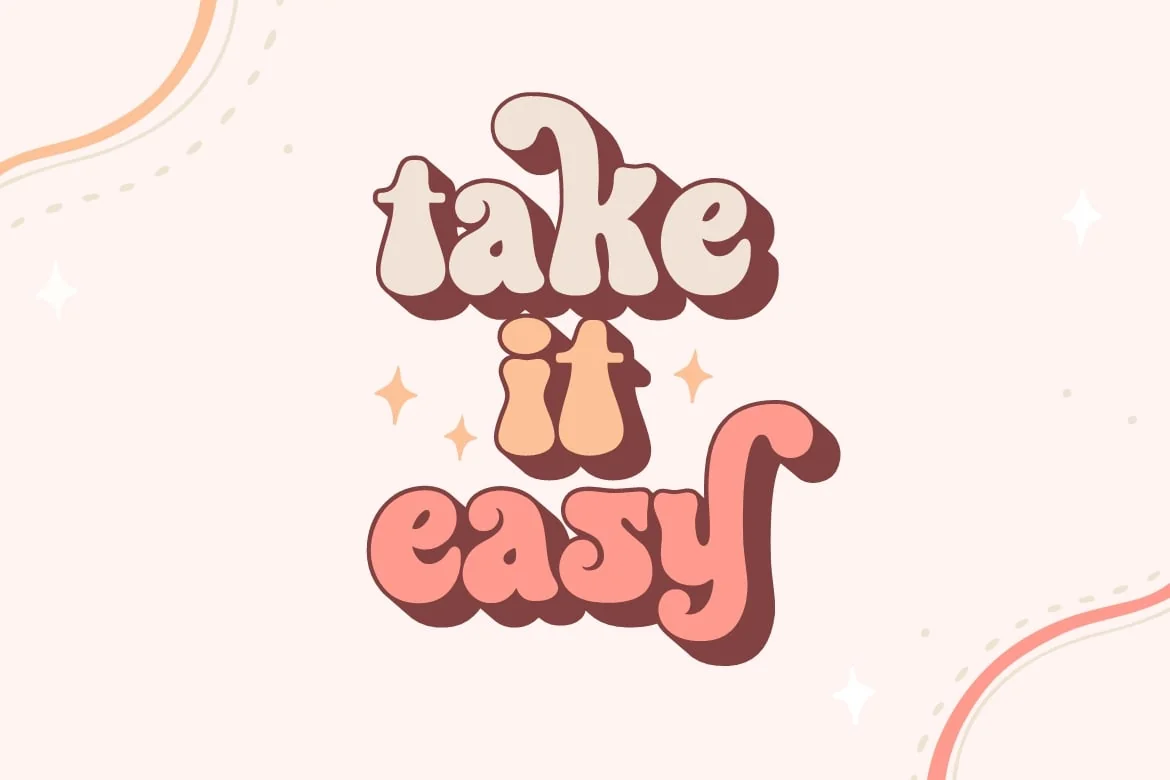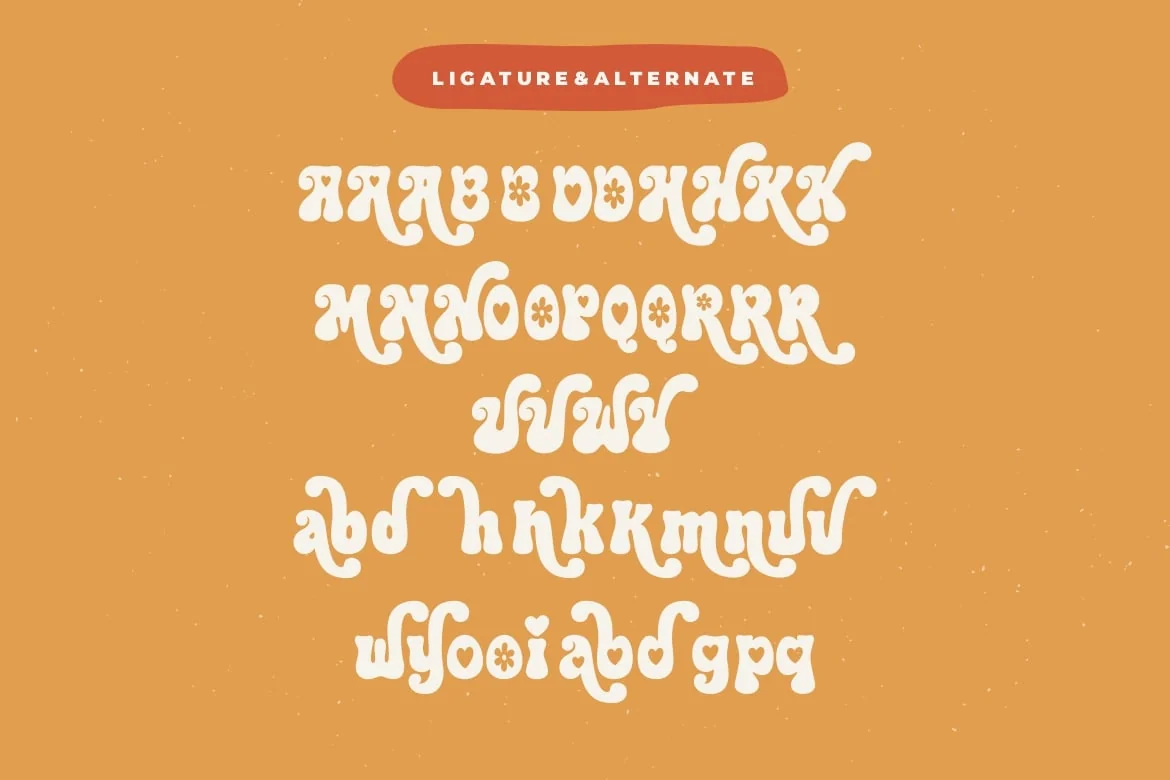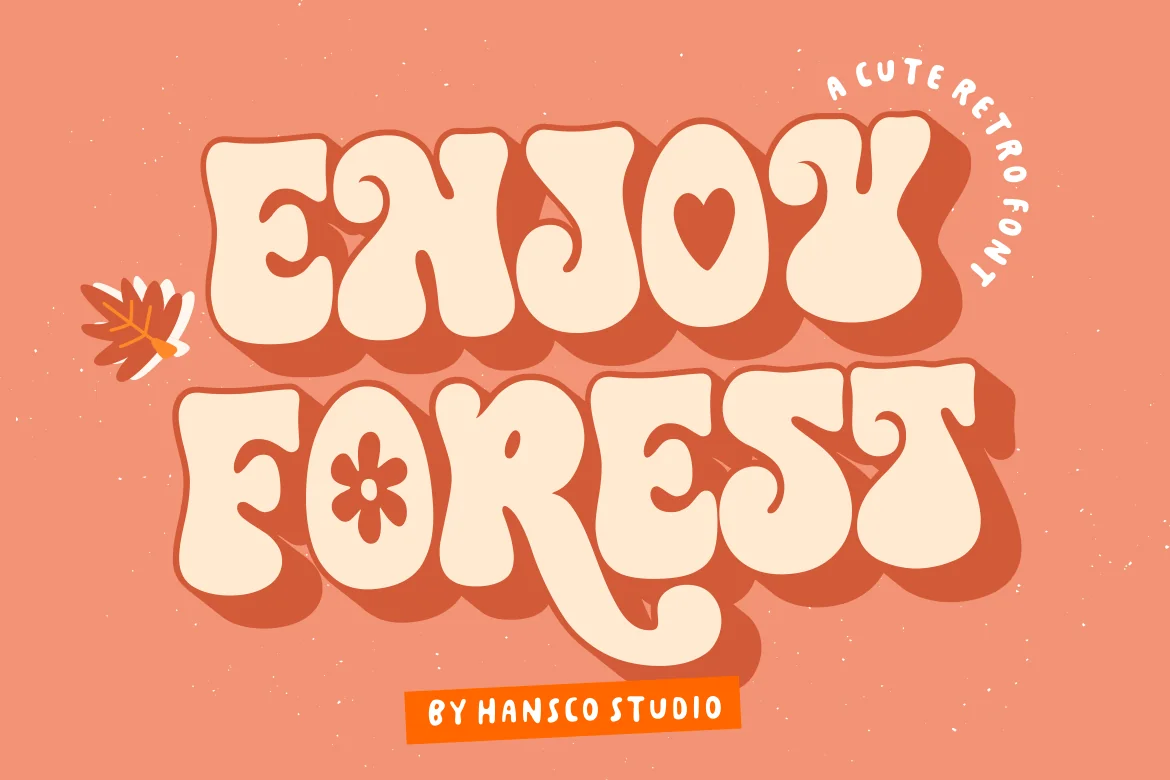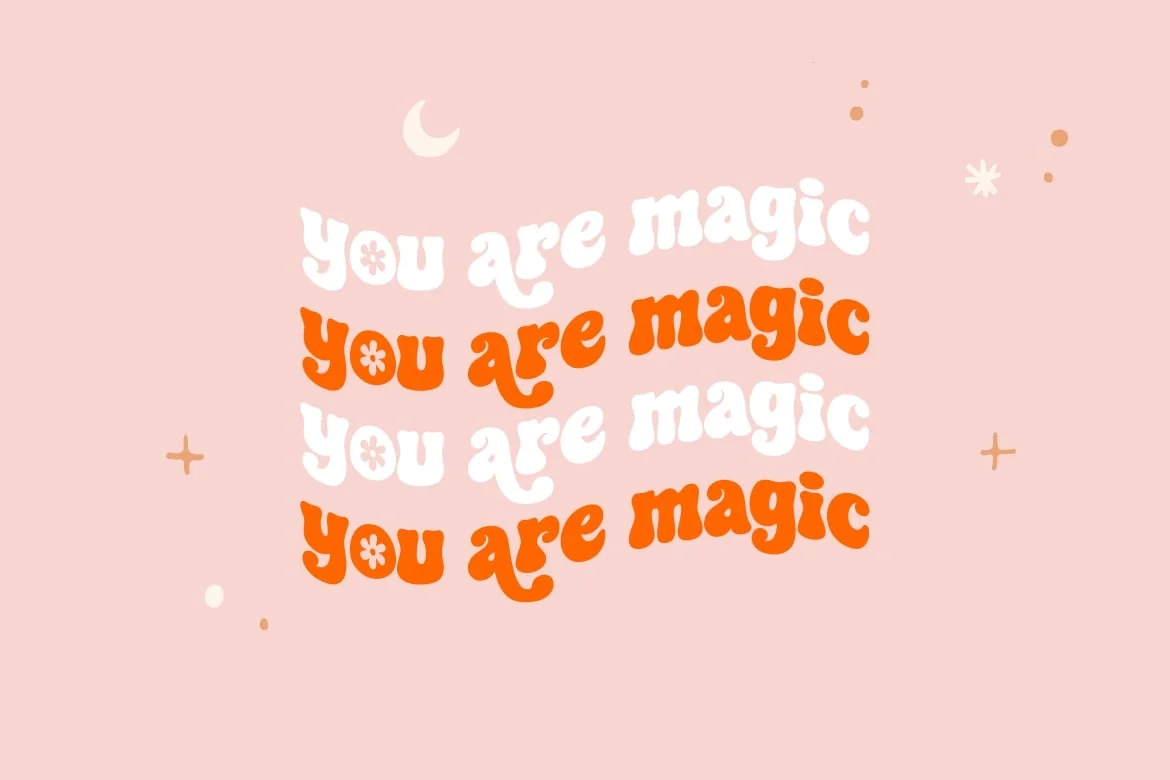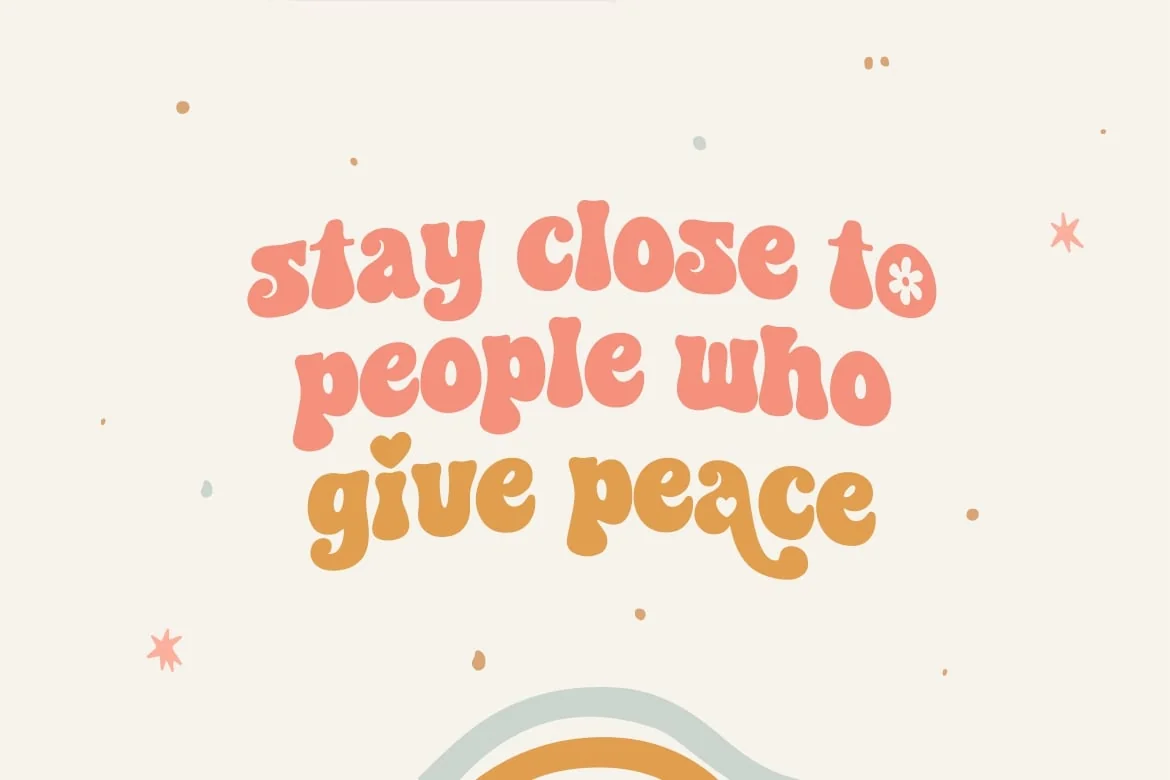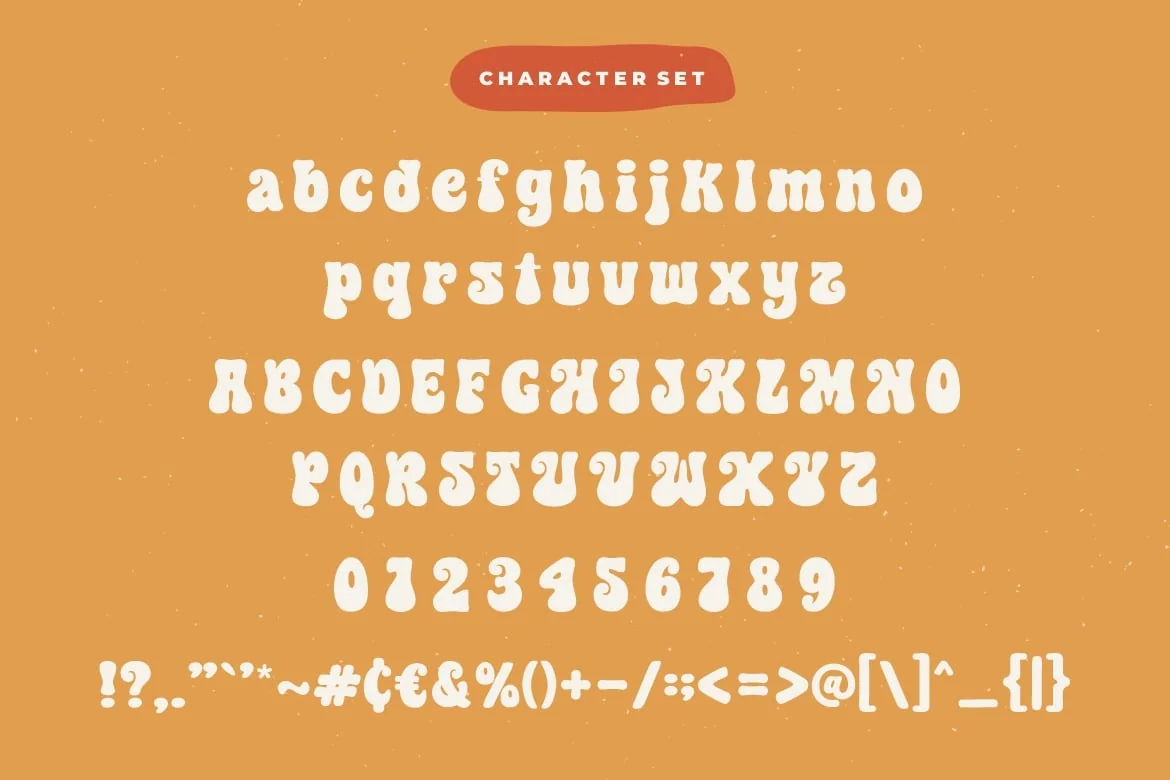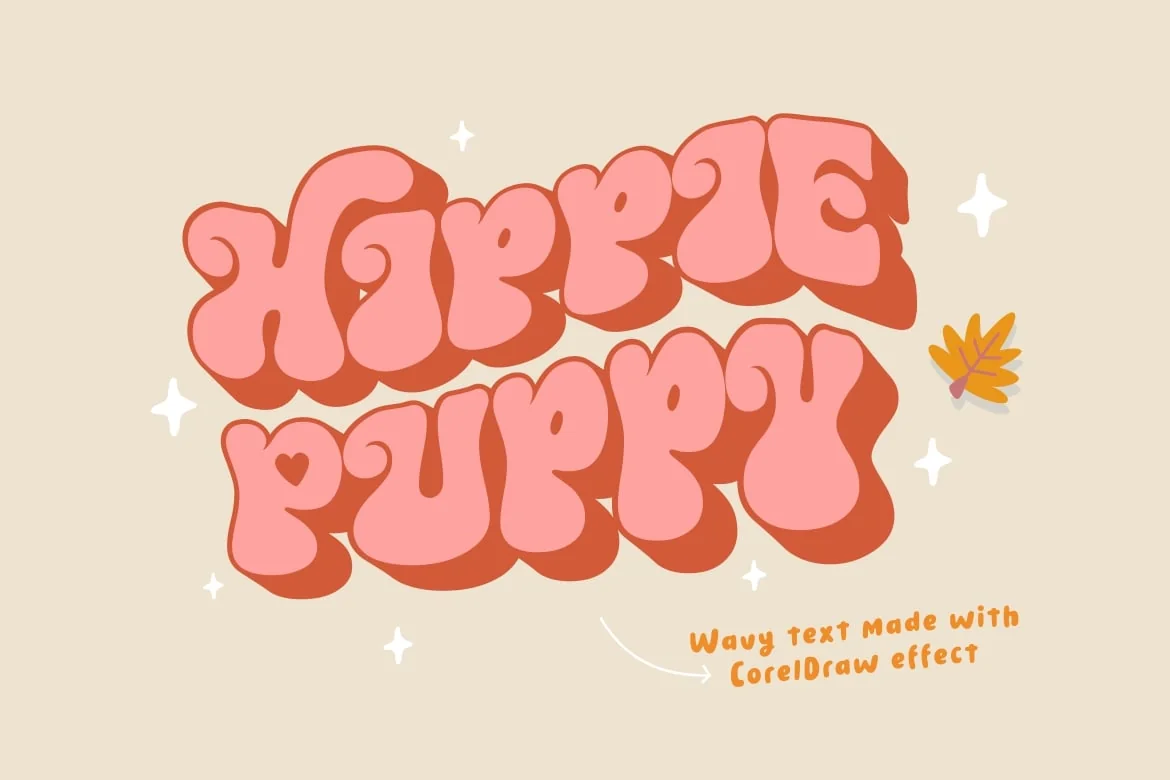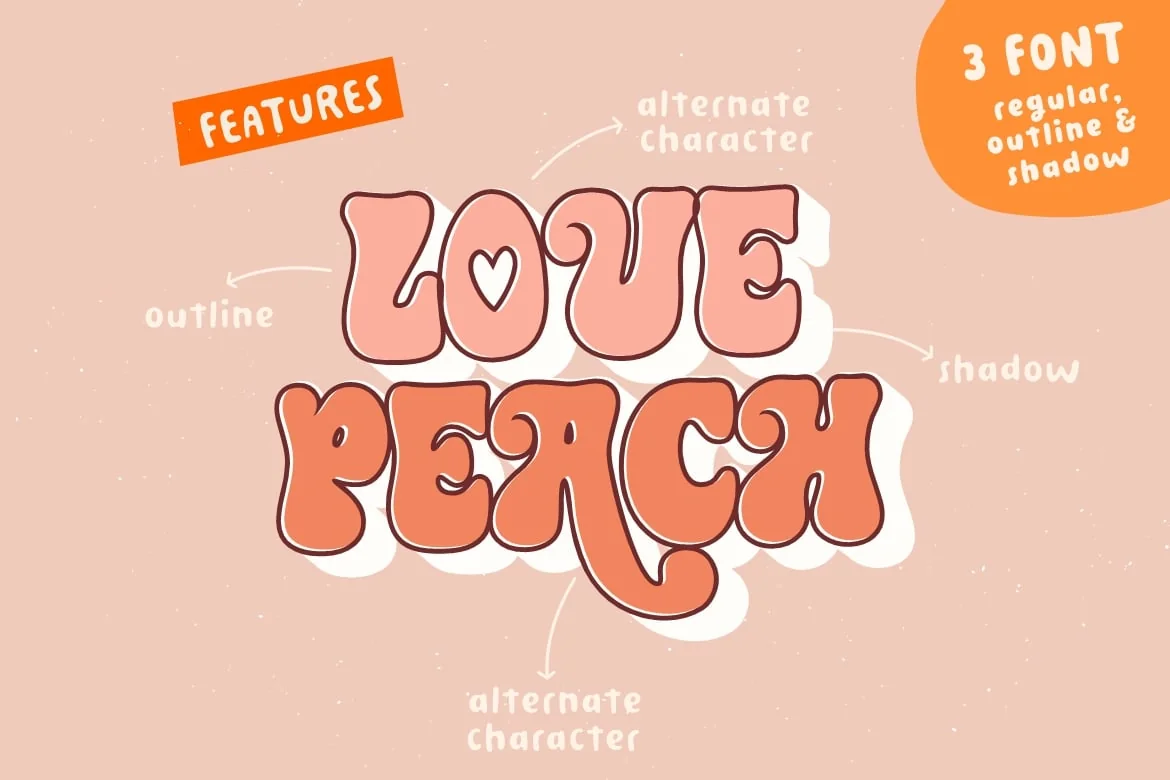
Enjoy Forest – Cute Retro Font
Enjoy Forest font is a retro serif and bold display font. You will get three types of fonts in this pack, Regular, Outline and Shadow version. Use this display font to add that special retro touch to any design idea you can think of!.
- Alternate Character
- 3 Font Style (Regular, Outline & Shadow)